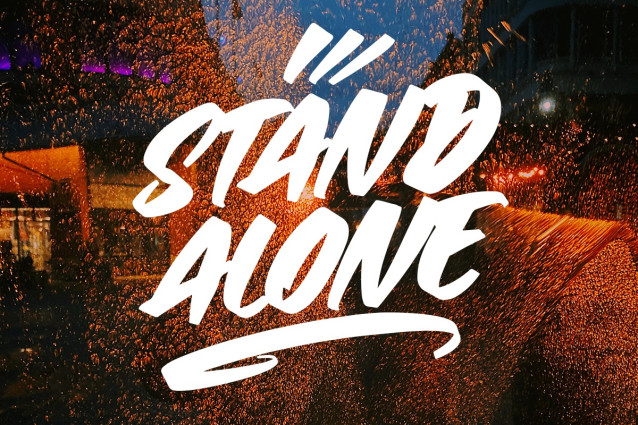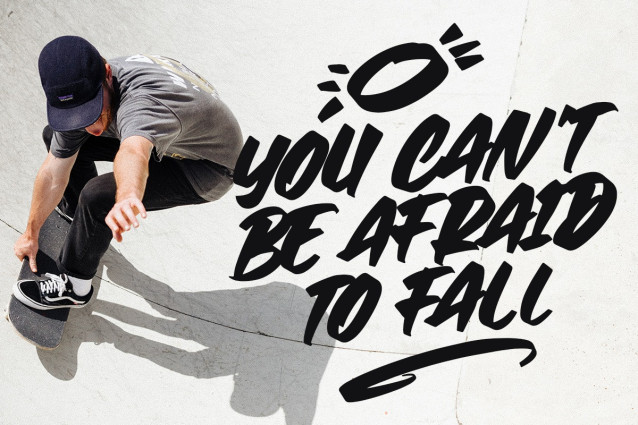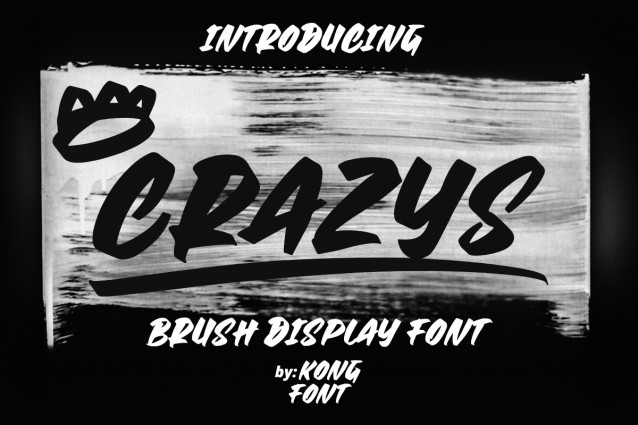
Crazys Brush Font
Crazys Brush Font is the name given to this eye-catching brush font. This font comes with a modern, simple, and clean look. Not accompanied by excessive curves or additions, he is still charming and able to seduce every pair of eyes that see him. Crazys Modern Display Font looks like it was written using a thick brush, so this font is also a bold font. Crazys Modern Display Font can be applied to event titles such as skateboarding. This font can use as a digital font such as movies, intros, and outro videos. This font is able to contribute to building a modern impression on everyone who sees it. Apart from being digital, it can also use on hoodies, jackets, and other clothing design items. Apart from the things mentioned above, Crazys Modern Display Font can be used to write on the title of a brochure that contains a promotion for a product. This strong font character can make people know the brochure’s contents by looking at the title and the font used. This font can use as a sign for a place or event. Our Esport & Futuristic font collection is compatible to use as; Figma fonts, Canva fonts, Freepik Fonts, and Adobe Fonts. They also work as Windows Fonts, and Apple Fonts. For your social media needs, you can use and install fonts in our collection of Espot & Futuristic fonts to use as Instagram Fonts, Facebook Fonts, and Twitter Fonts.